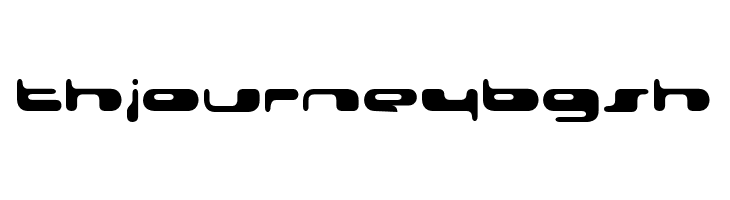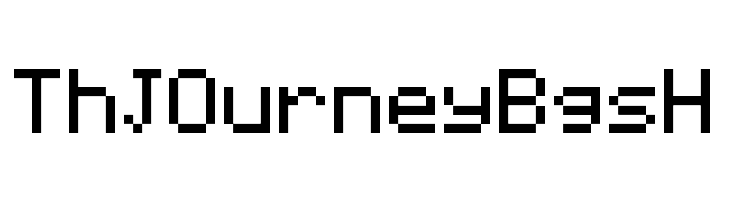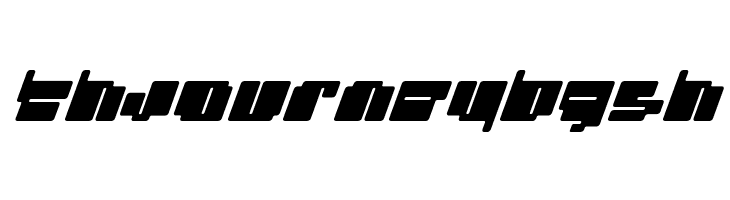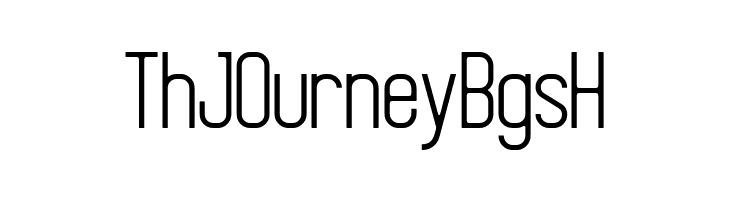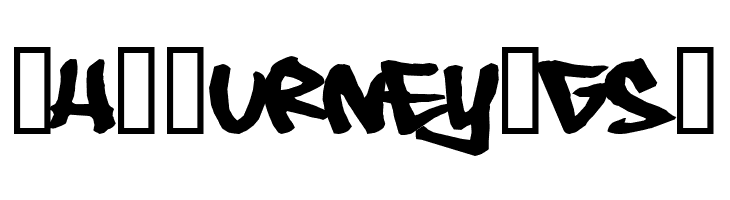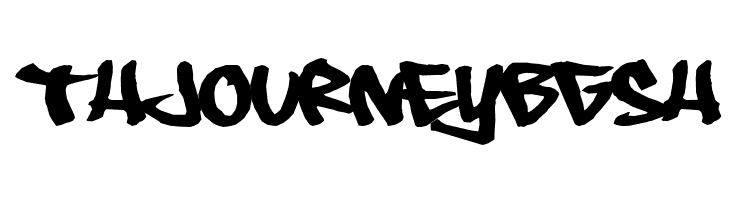
A bold, geometric font with a modern and structured design.
A modern, clean sans-serif font with uniform strokes and a slightly condensed form.
A modern, clean sans-serif font with uniform strokes and slightly condensed proportions.
A modern, geometric sans-serif font with a condensed width and uniform stroke.
A futuristic, bold font with rounded, geometric letterforms and low contrast.
A bold, graffiti-inspired font with dynamic and edgy strokes.
A futuristic, geometric font with bold, rounded letterforms and a modern, tech-inspired style.